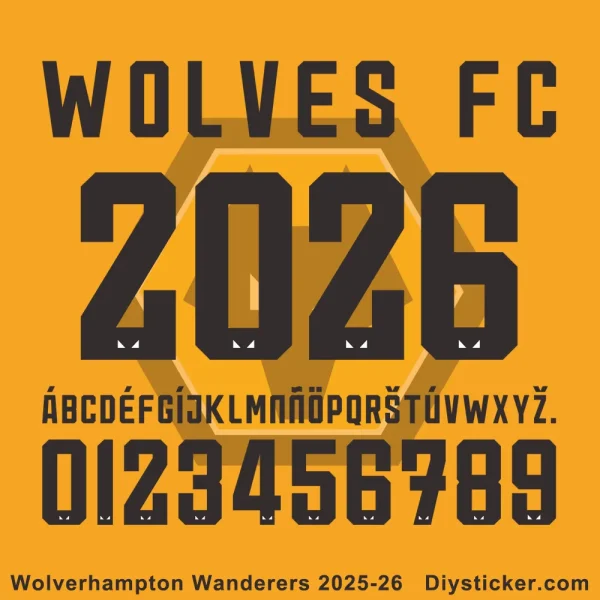
Wolverhampton Wanderers 2025-26 Font Download
Introducing the official Wolverhampton Wanderers 2025-26 font – the exact typography used for Wolverhampton Wanderers FC’s official branding and kit designs for the 2025-26 season. This complete digital font package is perfect for designers, fans, and creators looking to bring authentic Wolves style into their projects.